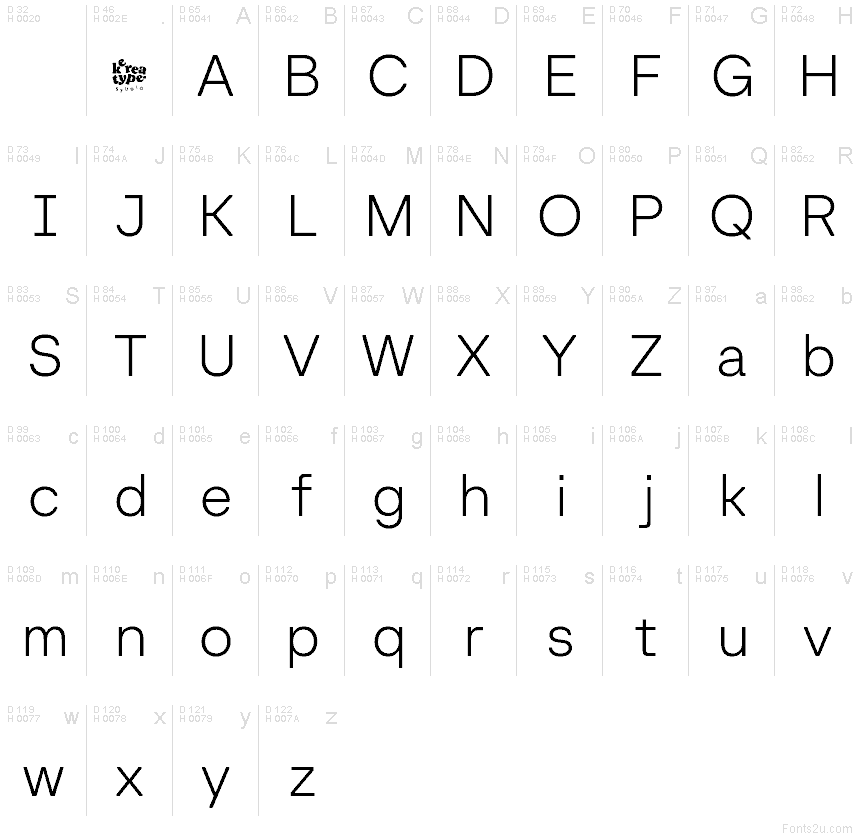
Baru Sans Demo Extra Light
Baru Sans Extra Light font by Kereatype Studio is a free sans serif typeface. Part of the Baru Sans family, it solves the “too-thin to trust” problem with clean, even strokes, open shapes, and calm spacing that keep it legible while feeling weightless. The texture is crisp and modern—think cool glass and precise lines—so your layouts breathe without looking fragile.
Using Baru Sans Extra Light, headlines and callouts feel airy yet confident. It shines on fashion branding, minimalist posters, tech landing pages, sleek portfolios, packaging details, and refined UI headers. For body text, pair it with Baru Sans Regular for an effortless hierarchy: set Extra Light large for impact, then let Regular handle the reading. This free font keeps everything sharp, balanced, and unmistakably contemporary.